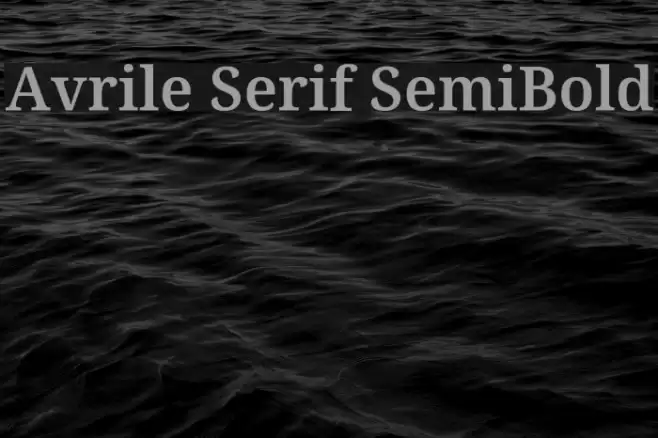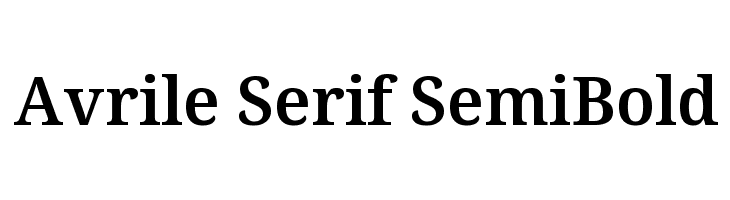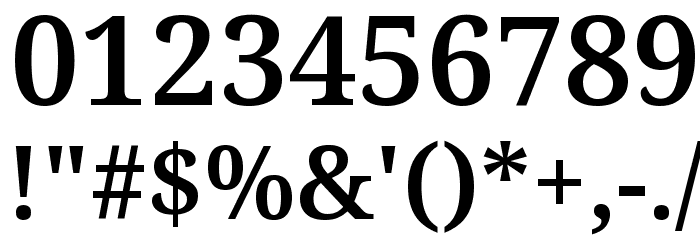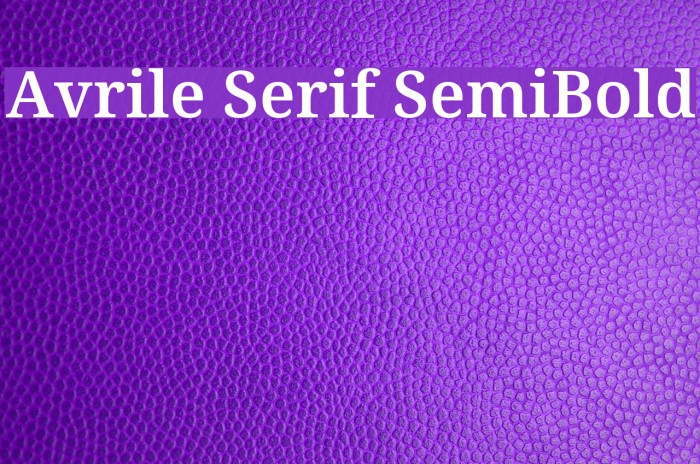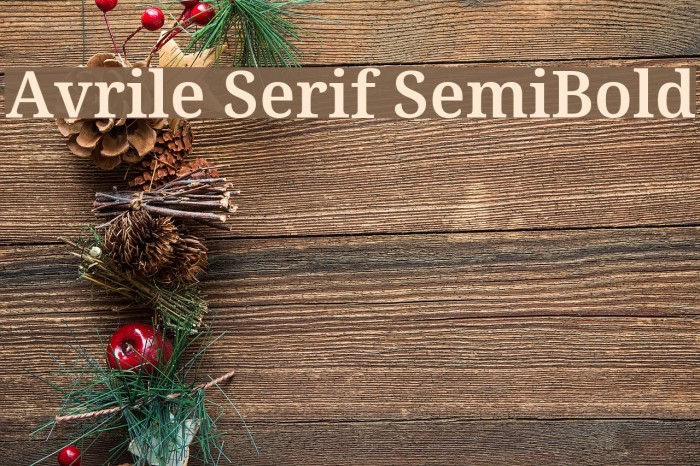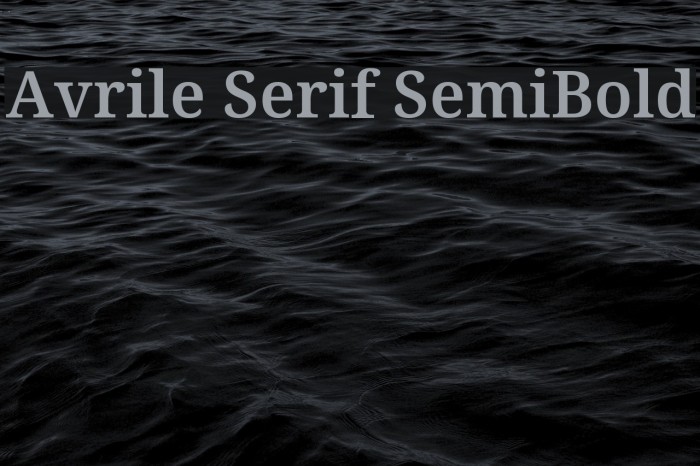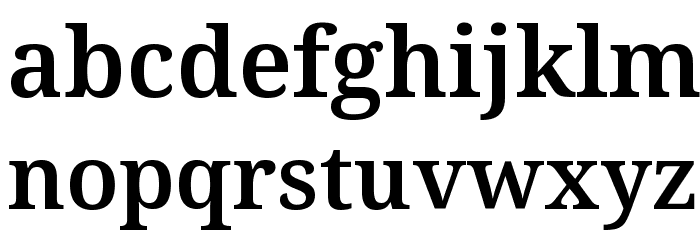
Avrile Serif SemiBold Font
Avrile Serif SemiBold Description
This serif typeface exudes a classic and elegant charm, characterized by its semi-bold weight that provides a strong presence on the page. The letters are well-defined with subtle serifs that enhance readability while maintaining a sophisticated appearance. The uppercase letters stand tall with a slight contrast in stroke thickness, giving them a refined look. Lowercase letters are balanced and harmonious, ensuring smooth readability. The numerals are clear and distinct, making them suitable for both text and display purposes. Special characters are thoughtfully designed, maintaining the font's overall aesthetic. This font is versatile, suitable for both digital and print media, and can be used effectively in various design contexts.
A classic serif typeface with semi-bold weight and elegant serifs, perfect for refined readability from Uncategorized fonts.
- Proposed Projects: Ideal for book covers, editorial layouts, branding materials, and elegant invitations.
- Overall Style: Classic